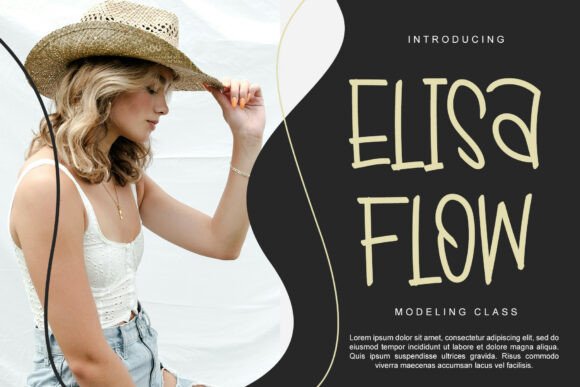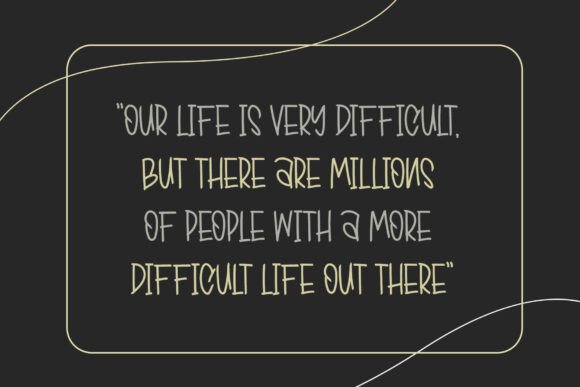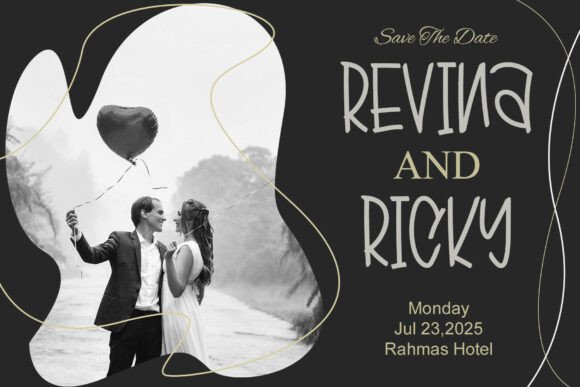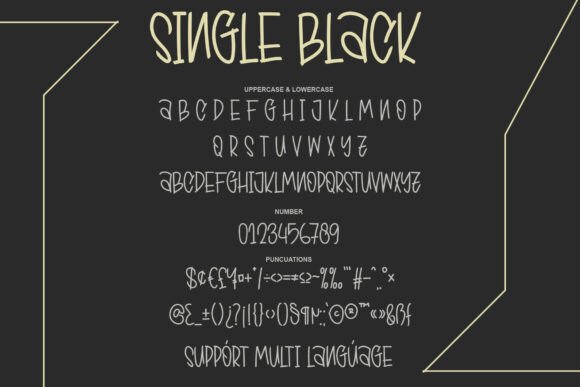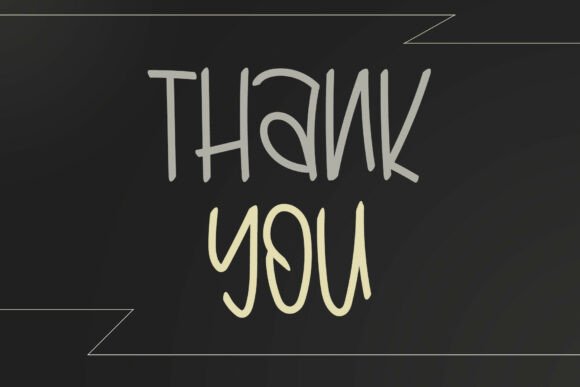
Introduction to Single Black Font
Have you ever stared at a blank page, feeling stuck and uninspired? That’s where Single Black Font comes in – a bold and quirky display font that’s guaranteed to spark your creativity and inject some much-needed fun into your designs. With its tall, cartoonish letters and laid-back character, this font is a design resource that’s hard to resist.
As a designer, you’re always on the lookout for high-quality fonts that can elevate your creative projects and make them stand out from the crowd. That’s where Single Black Font shines – its unique personality and sense of movement bring energy and playfulness to every letterform, making your designs feel fresh and unique. And the best part? This font is available for free download, complete with a transparent background that lets your design shine.
Whether you’re working on a children’s book title, a poster, or social media graphics, Single Black Font is the perfect choice for designers who want to add some attitude and personality to their projects.
- Perfect for use in logos, graphics, and other design elements where a simple, bold font is needed.
Honest Review: Single Black Font
I recently stumbled upon Single Black Font and was excited to give it a try in my creative project. After using it, I’m here to share my honest thoughts on this design resource.
- High-Quality Design: Single Black Font has a sleek, modern aesthetic that makes it perfect for contemporary designs.
- Limited Customization Options: While the font is beautiful, it’s a bit restrictive in terms of customization options.
- May Not Suit Traditional Designs: The modern design might not be suitable for more traditional or classic projects.
Overall, I think Single Black Font is a great addition to any designer’s toolkit, especially for modern and creative projects. However, it may not be the best choice for designers who prefer more traditional or customizable fonts.